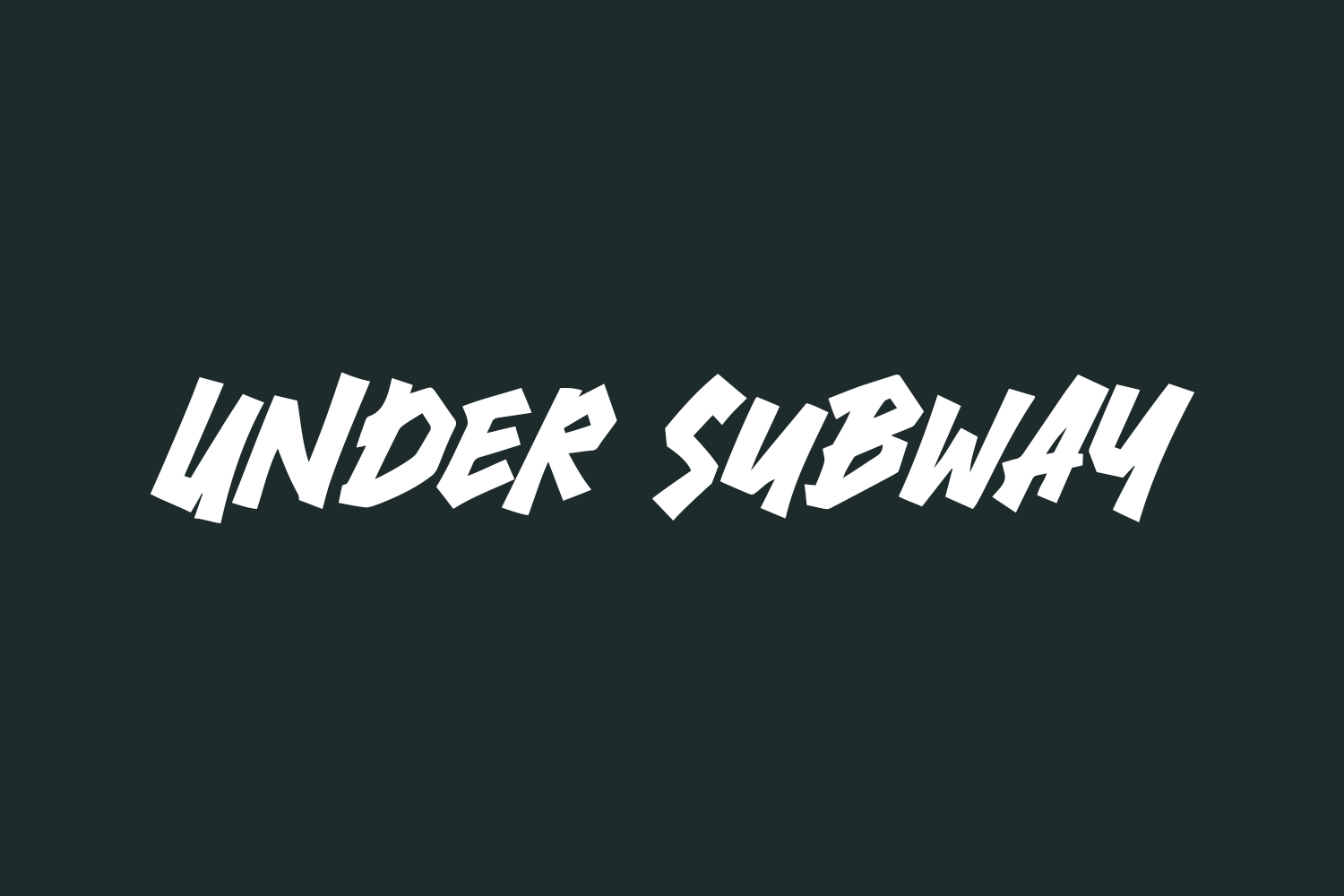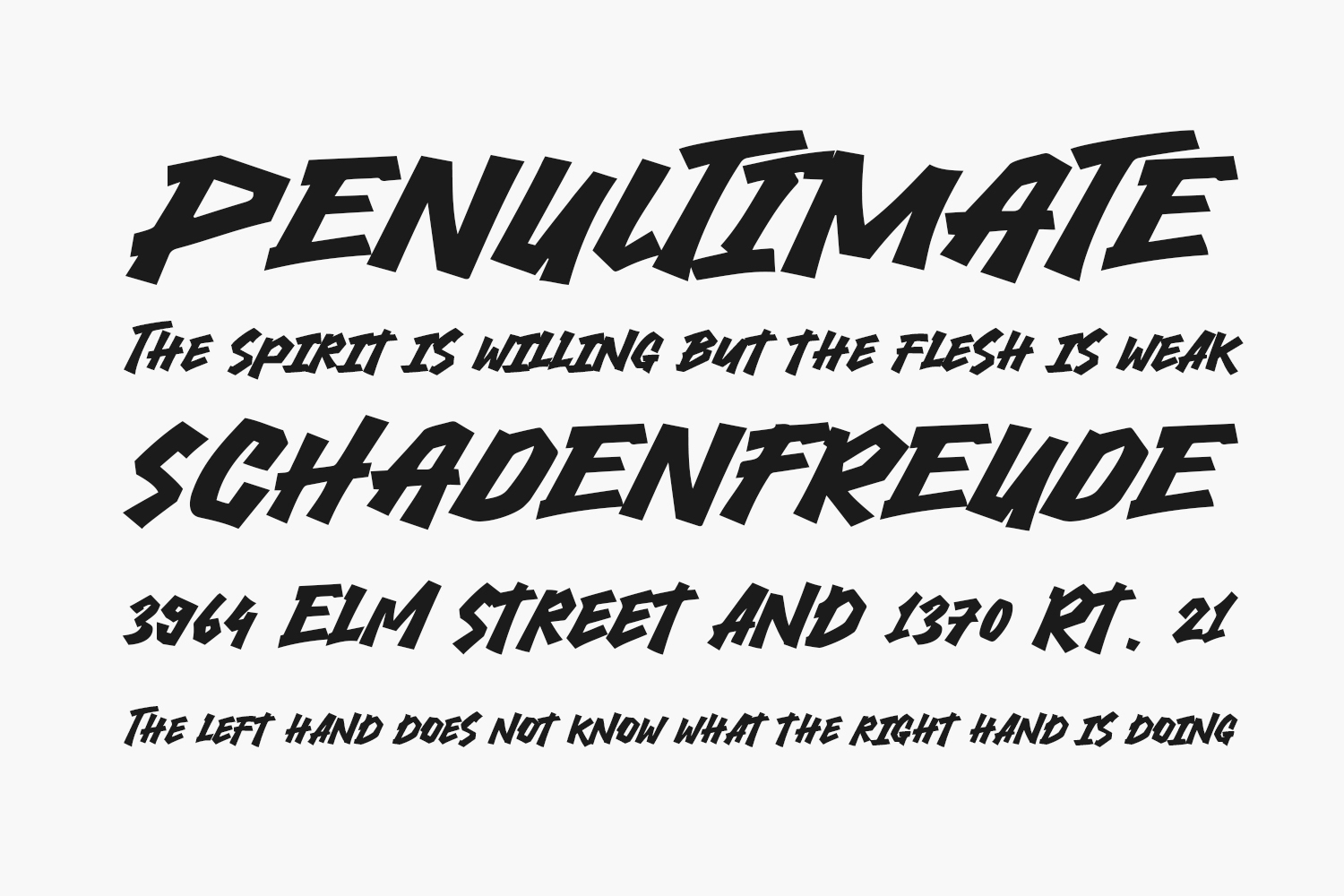
Introducing Under Subway Free Font, a contemporary bold display font that’s a perfect choice for posters, logos, magazines, book covers, banners, and more. This distinctive handwritten font adds a touch of quirkiness to your designs. Its versatility makes it suitable for a wide range of projects, allowing you to enhance your creative ideas and make them truly stand out. Under Subway Free Font is free for personal use only. Please purchase the full version for commercial use.